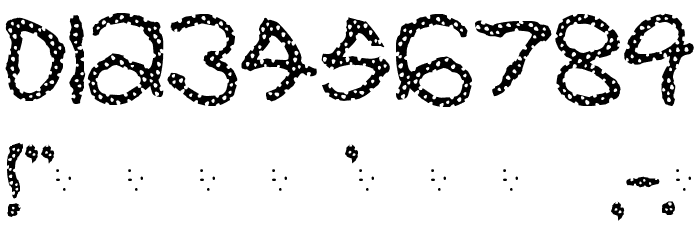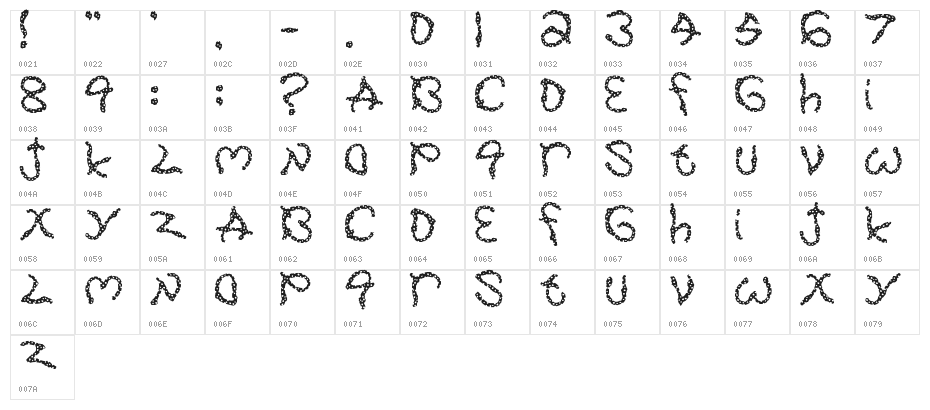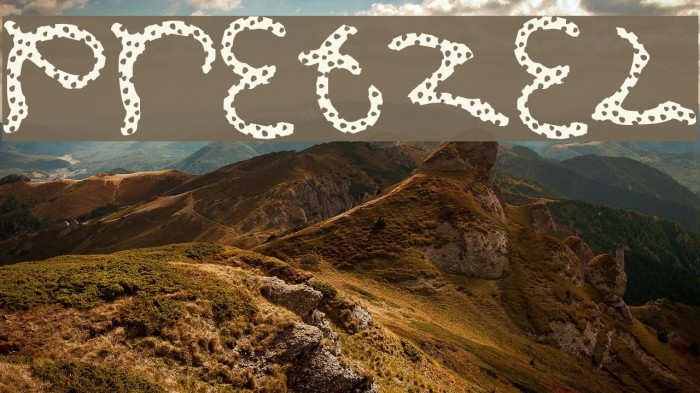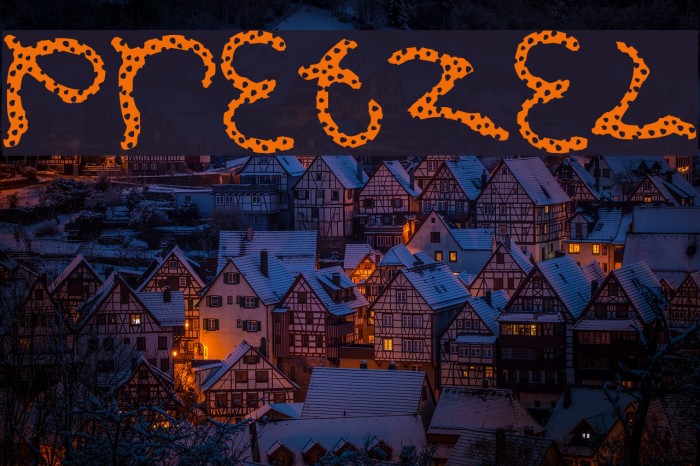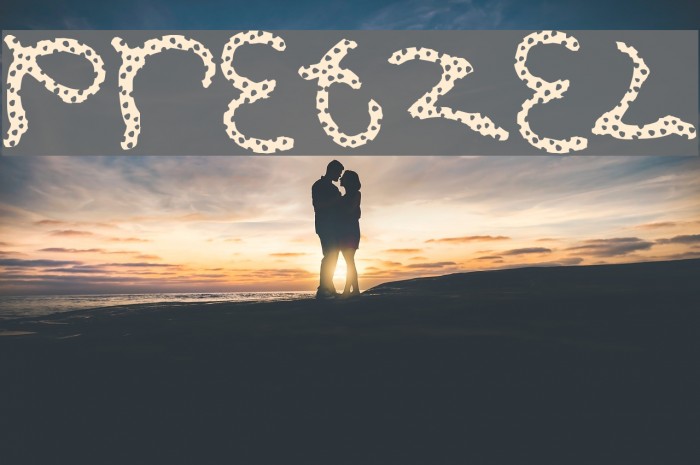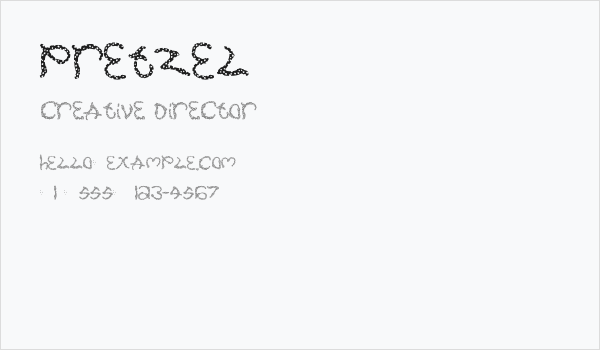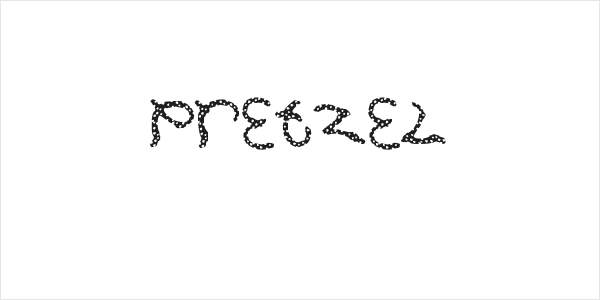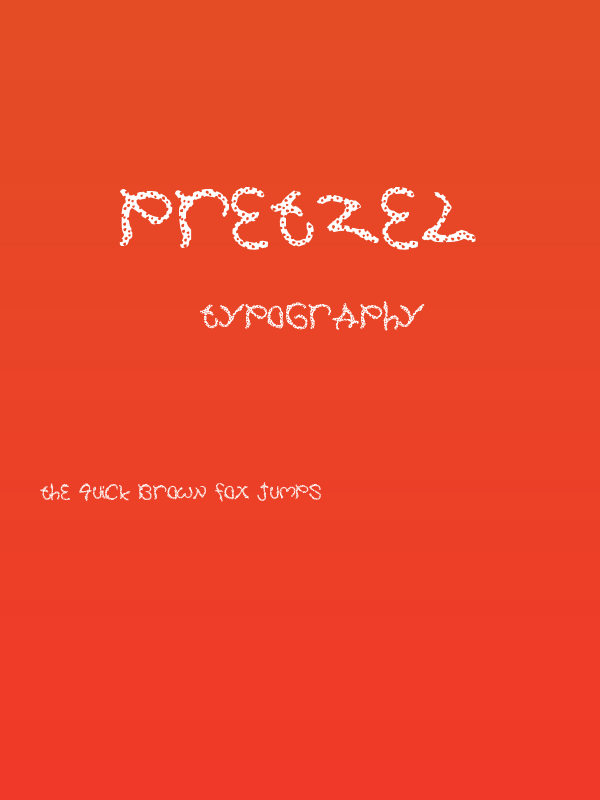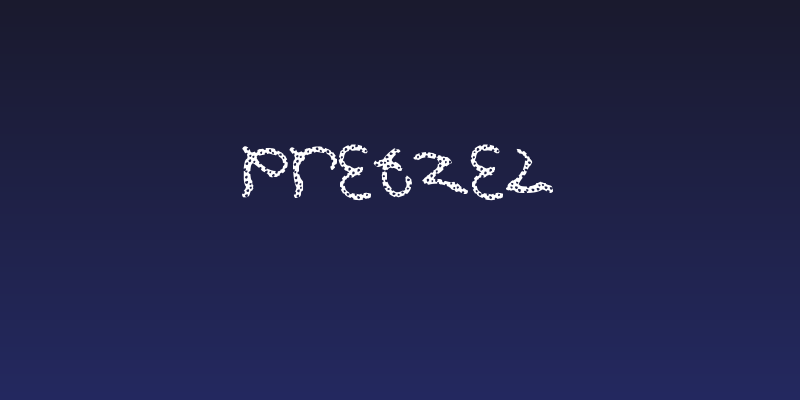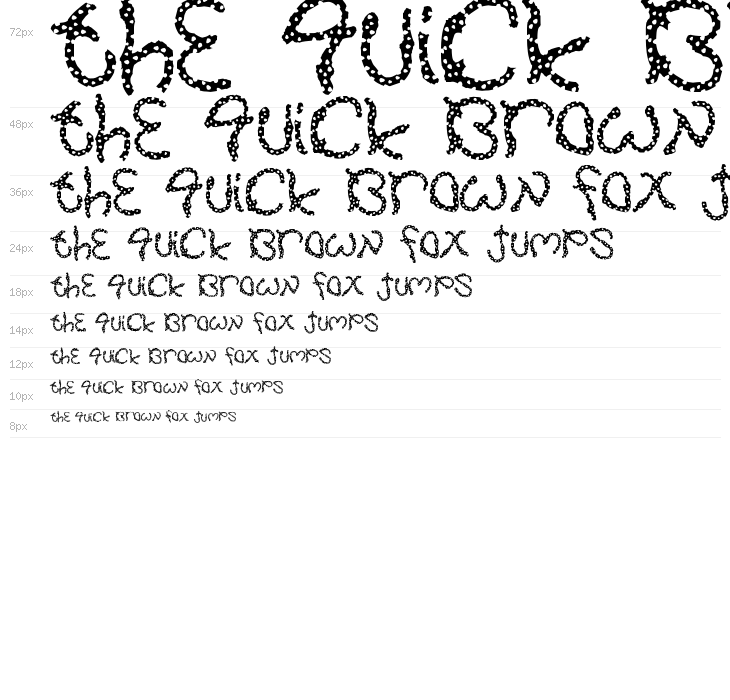
Pretzel Font
Pretzel Description
This playful and whimsical font features a unique design that resembles twisted pretzels, with each character adorned with small, circular details that mimic salt grains. The font has a hand-drawn quality, giving it a casual and fun appearance. The letters are slightly irregular, adding to the charm and character of the typeface. The overall look is both quirky and approachable, making it ideal for creative projects that require a touch of humor and personality. The font maintains legibility despite its decorative elements, ensuring that it can be used effectively in various contexts.
| Overall Style | Whimsical |
| Proposed Projects | Ideal for children's books, playful branding, party invitations, and food-related packaging. |